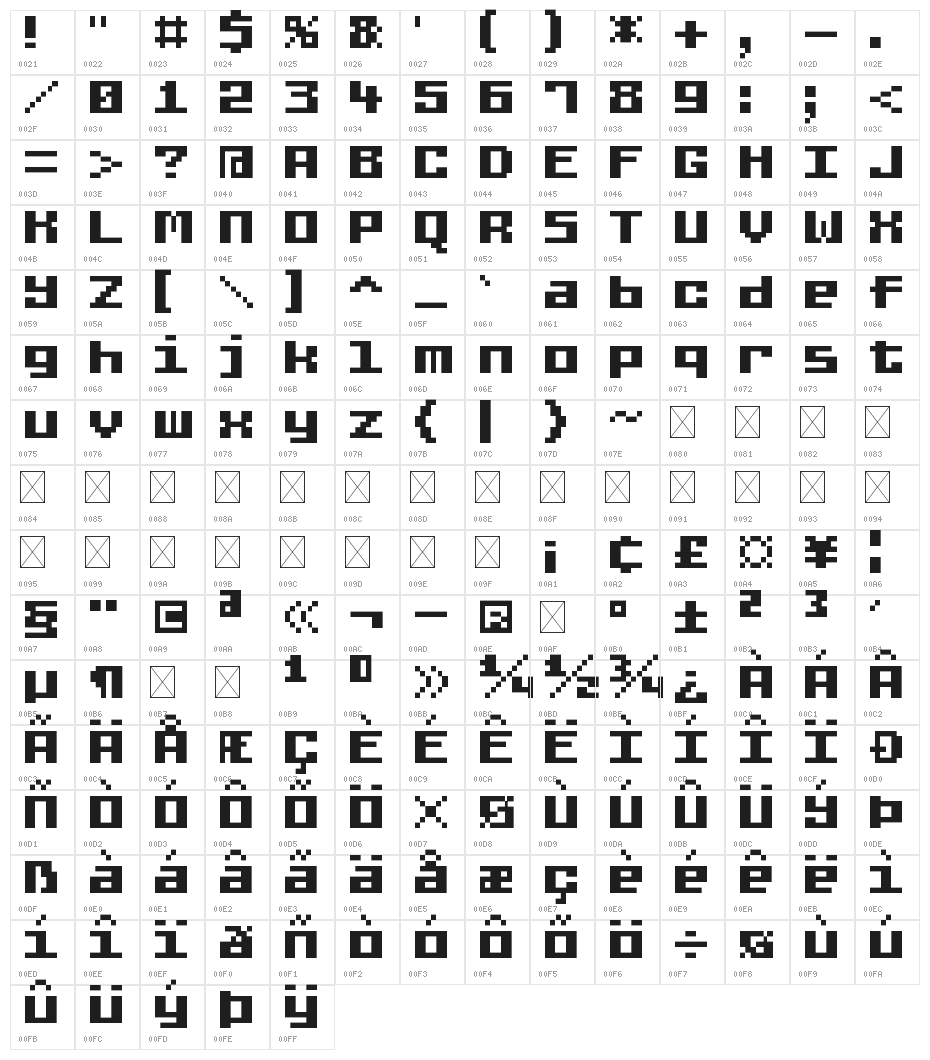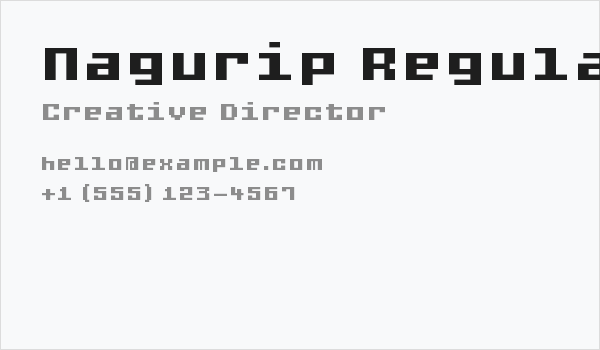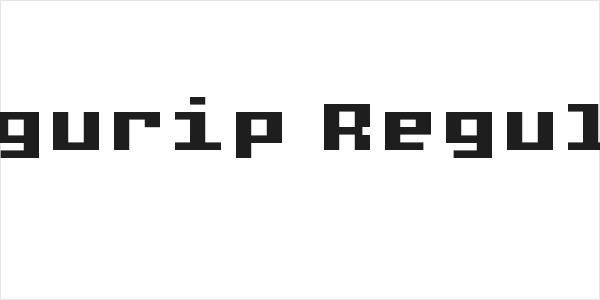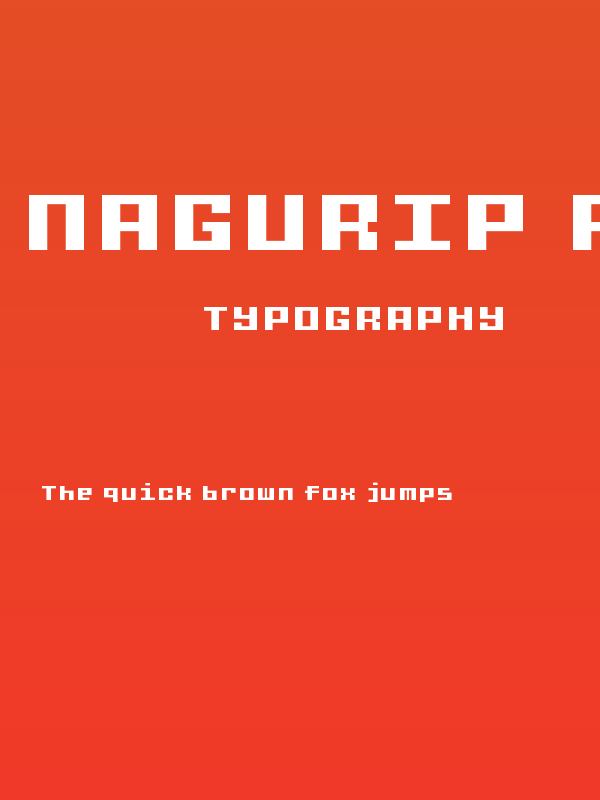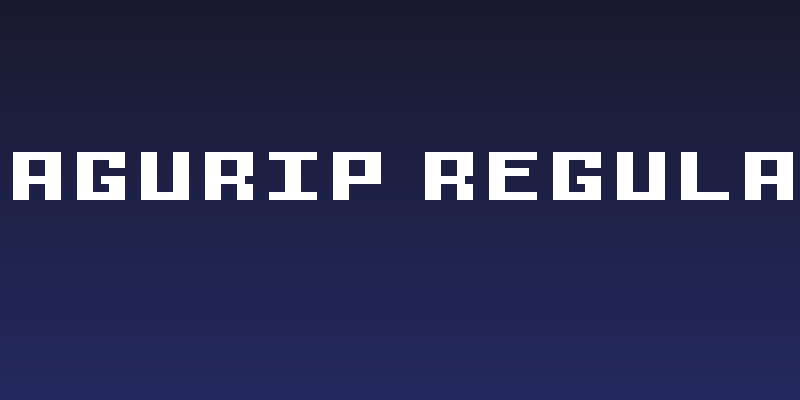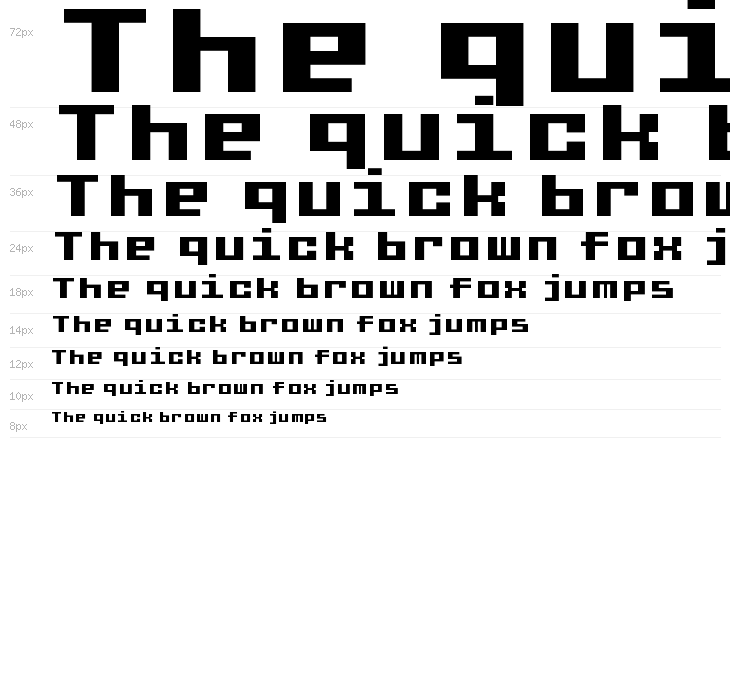
Nagurip Regular Font
Nagurip Regular Description
This font features a bold, pixelated style reminiscent of early digital and arcade aesthetics. Each character is constructed with a blocky, square design, giving it a distinctly retro and technological feel. The uppercase and lowercase letters maintain a consistent height, contributing to a uniform appearance. The numerals and special characters follow the same pixelated structure, ensuring coherence across all glyphs. This font's geometric and grid-like nature makes it ideal for projects that aim to evoke nostalgia or a digital theme.
| Overall Style | Retro, Digital |
| Use Case | Headlines, Logos, Digital Art |
| Proposed Projects | Ideal for video game design, retro-themed posters, digital art projects, and any creative work that seeks to capture a vintage digital feel. |